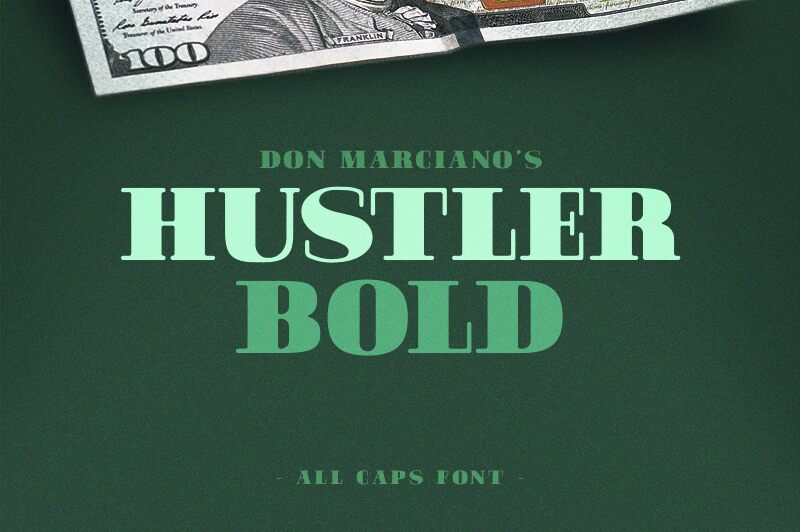
Hustler Bold
Introducing Hustler Bold, the dynamic and powerful serif font from designer Juan Miguel Castillo. With its bold styling and wide characters, Hustler Bold is perfect for projects that require a strong, authoritative presence. From attention-grabbing headlines to captivating logos to eye-catching posters and banners, Hustler Bold will make your message shine.
Juan Miguel Castillo